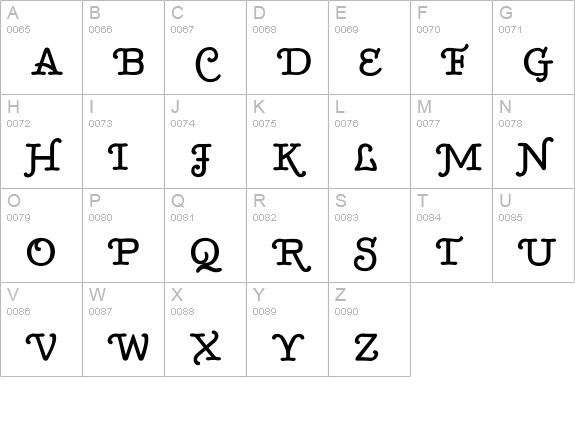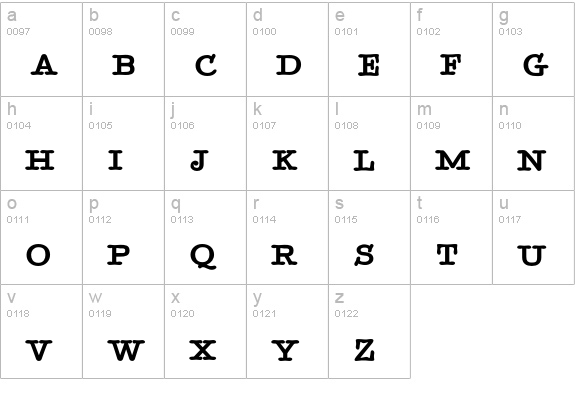
TypenradSpecialBold Font Details
TypenradSpecialBold font is a bold and powerful typeface that exudes confidence and strength. With its thick and sharp letterforms, this font commands attention and adds a touch of modernity to any design project. This font is perfect for headlines, logos, branding materials, posters, and any other creative endeavors that require a bold and impactful typeface. Its unique design creates a strong visual presence that is sure to leave a lasting impression. What sets TypenradSpecialBold font apart is not just its striking aesthetics, but also the fact that it is freely available to download at FontsMarket.com. This means that designers and creatives can easily access and use this font without any limitations or restrictions. Whether you are a professional designer or a hobbyist, TypenradSpecialBold font offers you the freedom to express your creativity and enhance your projects with its bold and contemporary style. So why wait? Download TypenradSpecialBold font today and make your designs stand out with its powerful presence.